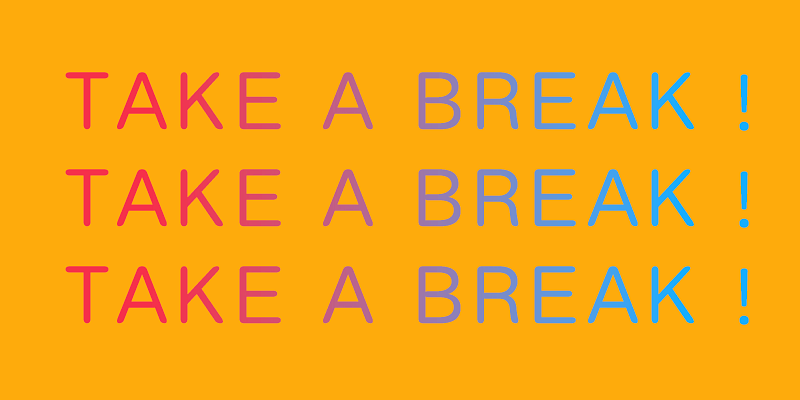
HelloFont ID Dian Yuan Font Free Download
HelloFont ID Dian Yuan Font Free Download is a versatile and elegant Chinese-inspired typeface that blends traditional brushstroke influences with modern, clean lines. Featuring well-balanced strokes and a subtle, artistic touch, this font is perfect for projects ranging from branding and packaging to editorial design and signage. Its elegant yet readable design ensures it stands out in both digital and print formats.
The HelloFont ID Dian Yuan Font combines modern aesthetics with cultural depth, making it ideal for high-end branding, event materials, and promotional content. Its balance of traditional calligraphy and contemporary design gives your project a sophisticated and timeless feel.